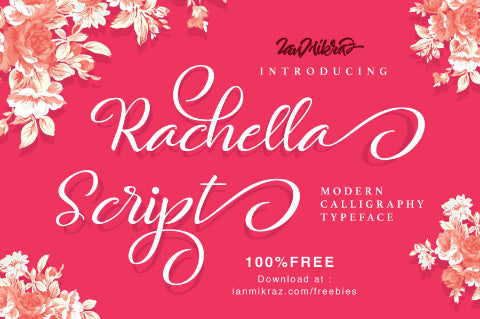
Free Rachella Script Font
Download and enjoy this free rachella script font. Cool typeface to showcase your designs in a modern way. This is a downloadable font file brought to you by Free Design Resources. Easily amaze your audience with this cool font and make your graphic designs pop up from the crowd.